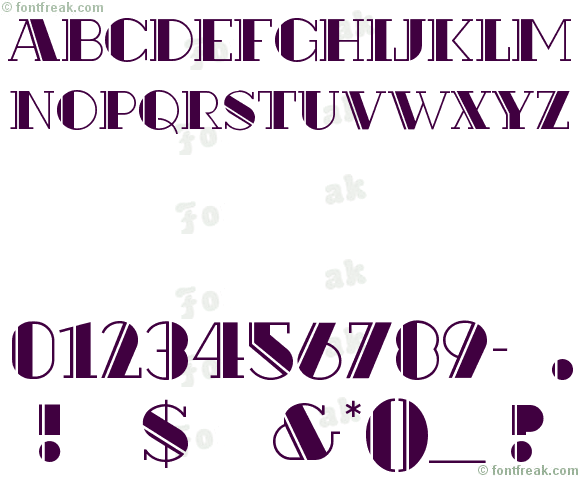
Rialto
About Rialto
Rialto is a striking serif font designed by Nick Curtis in 2000, available under a freeware license. This font stands out for its elegant balance of traditional serif characteristics combined with modern sensibilities, making it a versatile choice for various design projects. With its moderate stroke weight and well-defined contrast, Rialto exudes sophistication while maintaining readability. The spacing is thoughtfully designed, allowing for clear legibility even at smaller sizes, which is essential for both digital and print applications.
Rialto is particularly suitable for wedding invitations, where its refined appearance can add a touch of elegance. It also works wonderfully for movie posters, providing a classic yet contemporary feel to film titles and credits. Restaurant menus can benefit from the sophisticated charm of Rialto, enhancing the overall dining experience by conveying quality and attention to detail. Moreover, it serves as an excellent choice for branding projects, particularly for businesses in the fashion or lifestyle sectors, where a polished image is crucial.
The target audience for Rialto includes graphic designers, small business owners, and content creators who seek a font that combines artistic appeal with functionality. Whether used in promotional materials or digital assets, Rialto offers a distinctive personality that can elevate any project.
What truly sets the Rialto font apart is its ability to blend classic and modern aesthetics seamlessly. This makes it a valuable addition to any designer's toolkit. With the Rialto font free download option, creatives can easily access this elegant typeface, allowing them to incorporate its unique charm into their work without any financial constraints. Its timeless design ensures that it remains relevant for years to come.
Author Nick Curtis